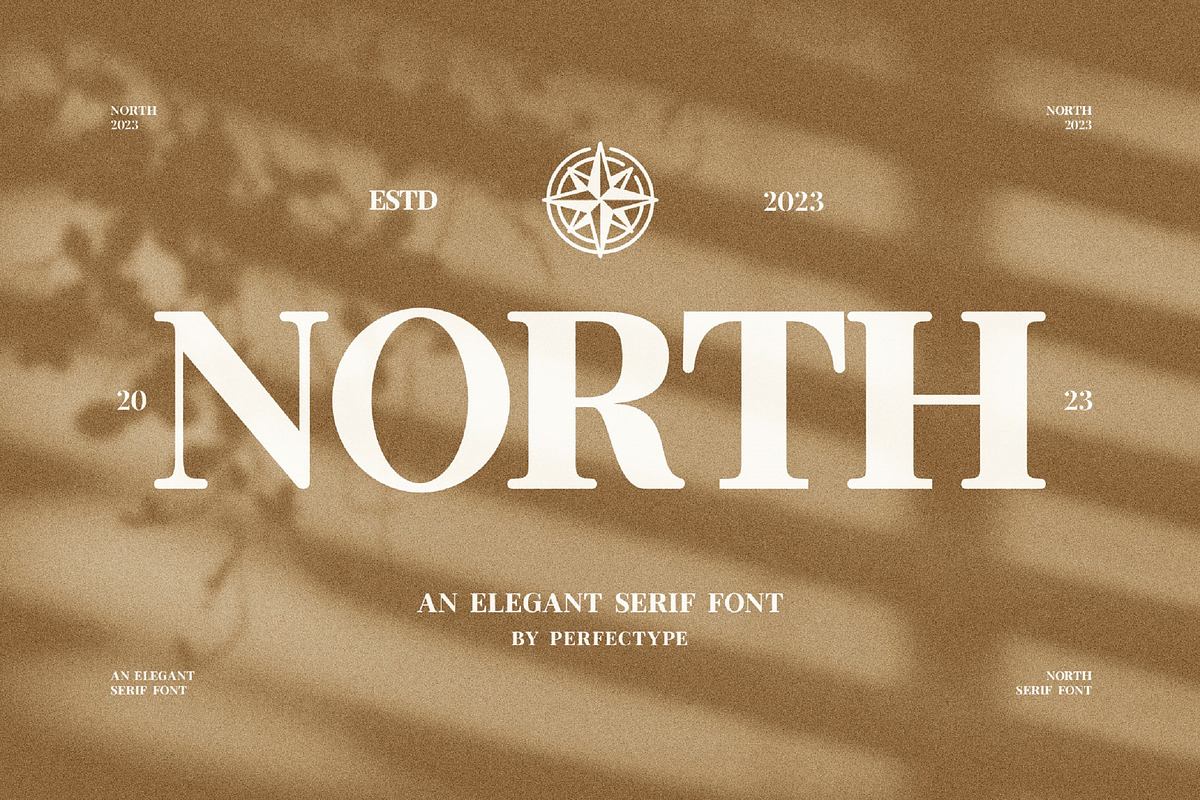
North Elegant Serif Font Free Download
North Elegant Serif Font Free Download is a timeless typeface crafted with sophistication and grace in mind. Designed for those who appreciate classic aesthetics with a modern twist, this font is ideal for wedding invitations, luxury branding, editorials, and high-end packaging. Its delicate serifs and balanced letterforms offer a refined, upscale look that instantly elevates any design. The font captures the essence of elegance while maintaining excellent readability across both digital and print media. With North Elegant Serif Font Free Download, you can explore its beauty in personal projects or test it before acquiring the full license for professional use. Whether you're building a brand or curating a stylish portfolio, this font adds the perfect touch of finesse and class. Embrace the charm of traditional design reimagined for today’s creative needs.